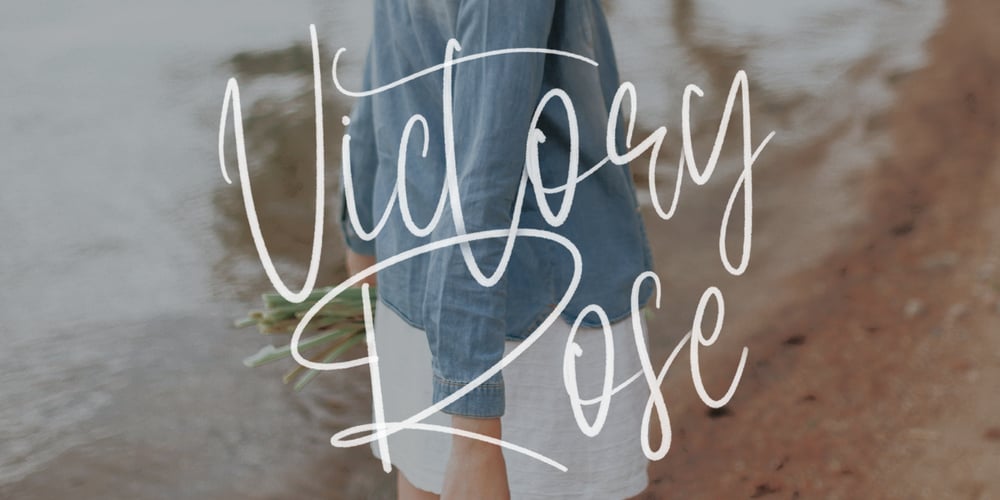
Victory Rose
Victory Rose font
Victory Rose Font Family was designed by Gilang Maulana and published by Maulana Creative. Victory Rose contains 1 styles and family package options. Give your designs an authentic brush handcrafted feel. “Victory Rose” is perfectly suited to signature, stationery, logo, typography quotes, magazine or book cover, website header, flyer, clothing, branding, packaging design and more.